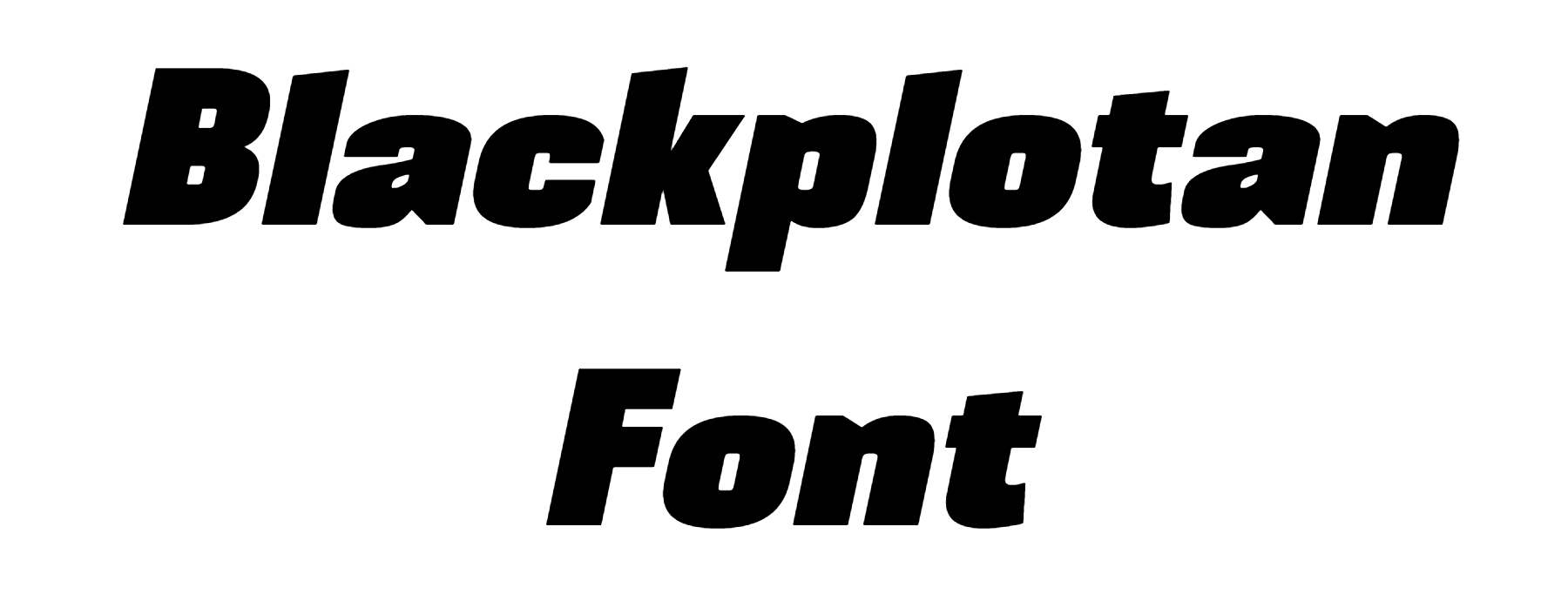
Blackplotan
Blackplotan is a sans serif font created by Situjuh Nazara (2014). Its clean letters skip the little "feet" (serifs) of traditional type, so it looks modern and reads well on screens. The free download includes two styles, and you can try every one of them with your own text in the preview above.
- Designer: Situjuh Nazara
What You Can Type With Blackplotan
With complete upper and lowercase letters and all ten digits, Blackplotan is ready for real wording, not just a single headline. Common punctuation such as &, !, ? and @ is included as well. It also has the accented letters you need for Spanish, French, German, Portuguese and Italian.
Where Blackplotan Works Best
Think of Blackplotan for websites, app screens and clean logos. It works for headings and body text alike. If the download has several weights, use a heavier one for titles and a lighter one for paragraphs. Because the family has more than one style, you can mix them in a single design for headings, subheadings and highlights.
Who designed Blackplotan font?
Does Blackplotan support accented letters?
Yes. Blackplotan includes the accented letters needed for Spanish, French, German, Portuguese and Italian, so it works for more than just English.